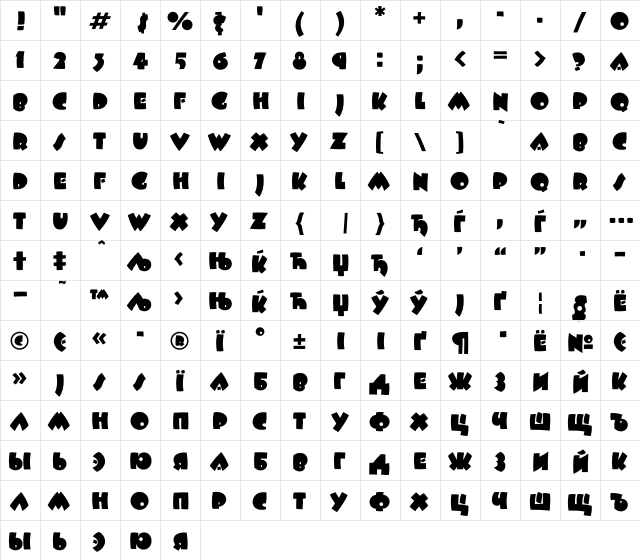
BeeskneesC Regular Font Preview
BeeskneesC Regular
Design Context for BeeskneesC Typeface
BeeskneesC is a composed and adaptable typeface that performs quietly and consistently across a wide range of design contexts.